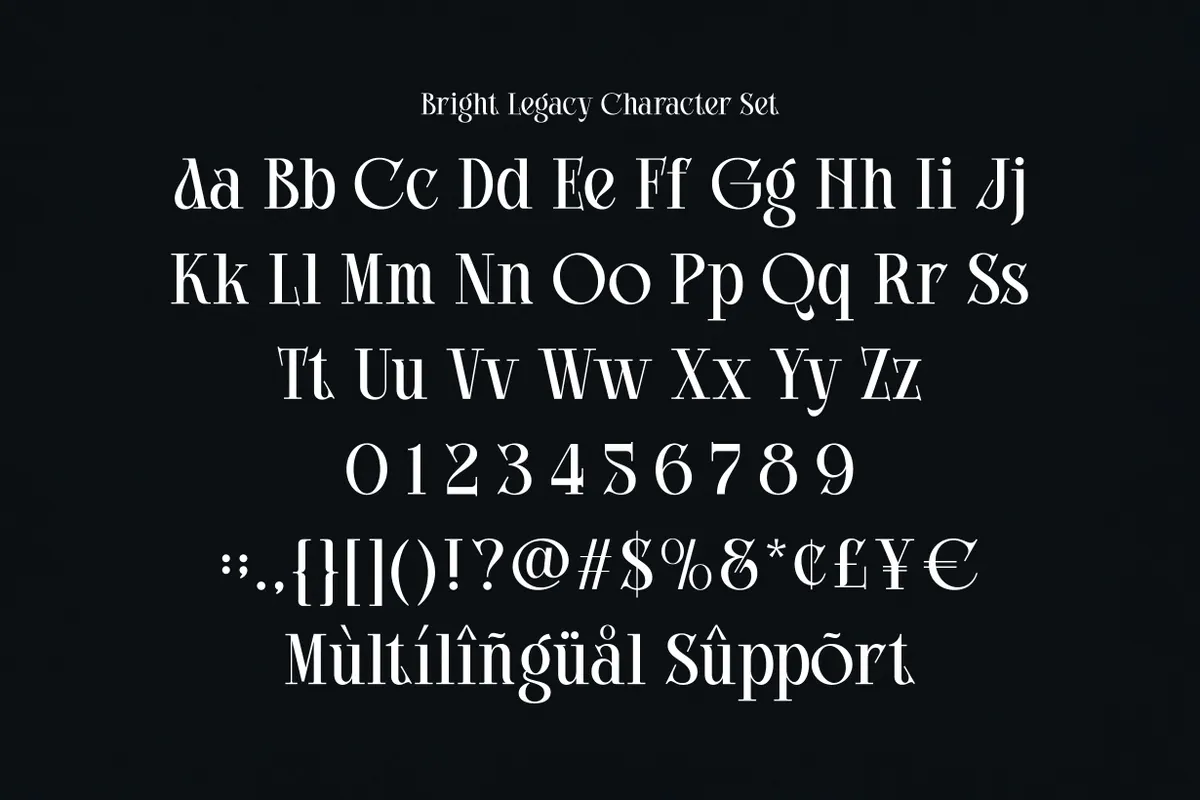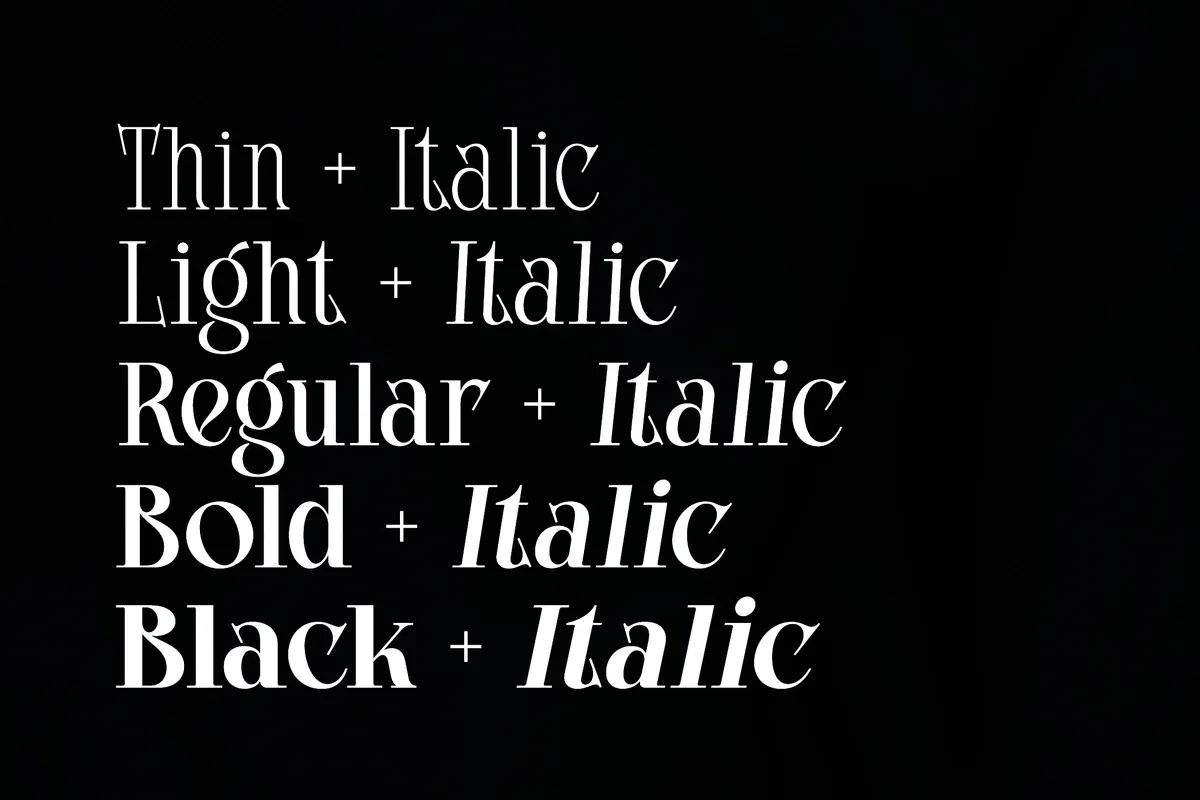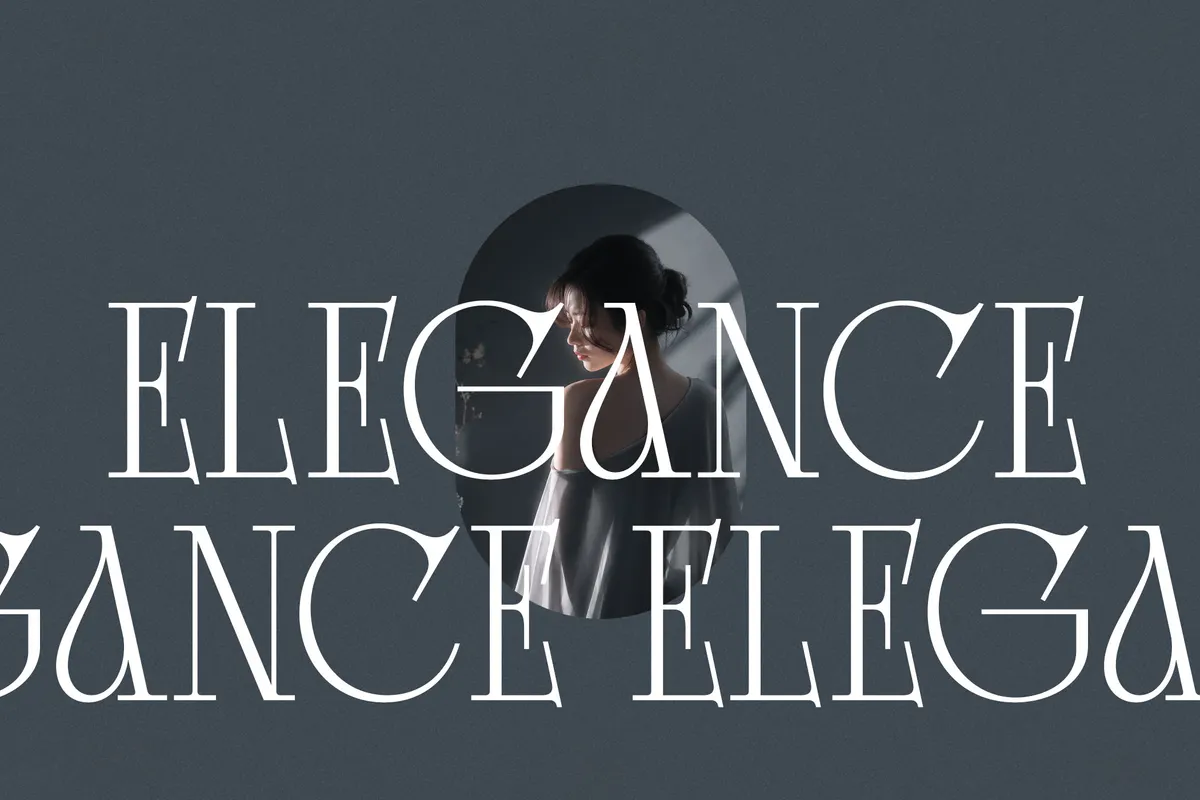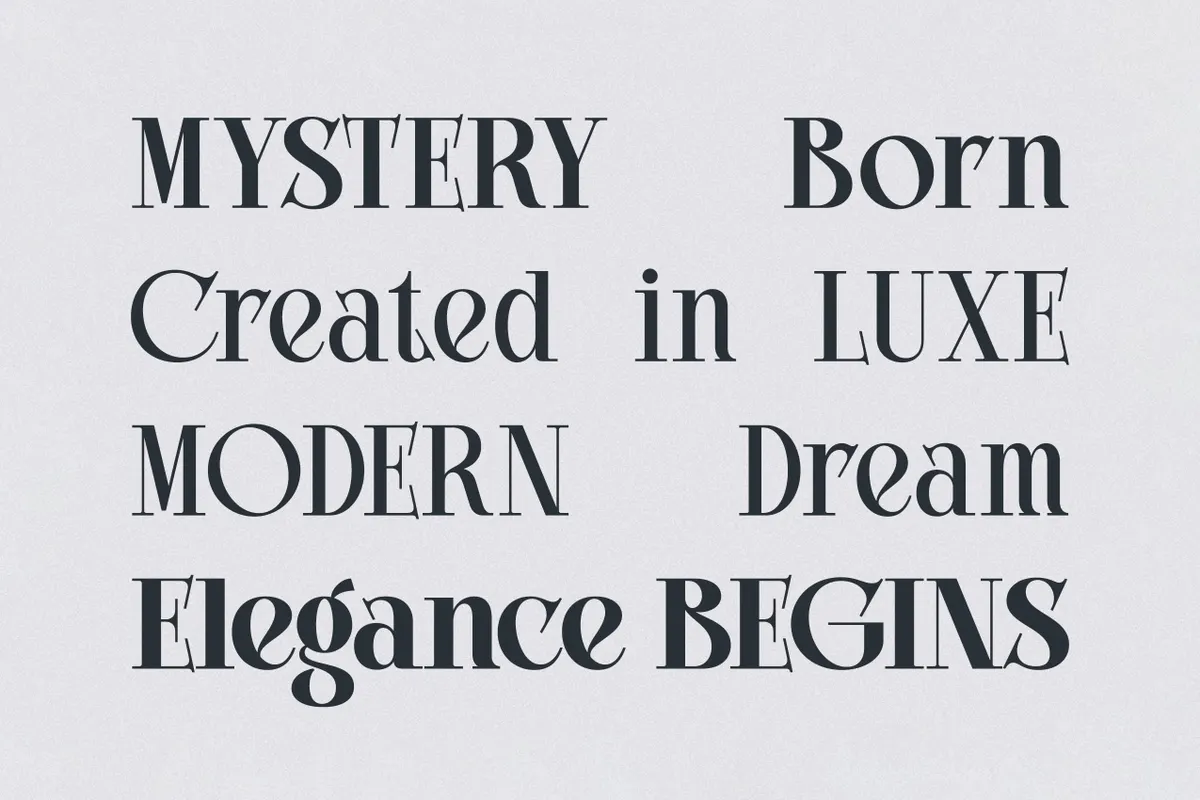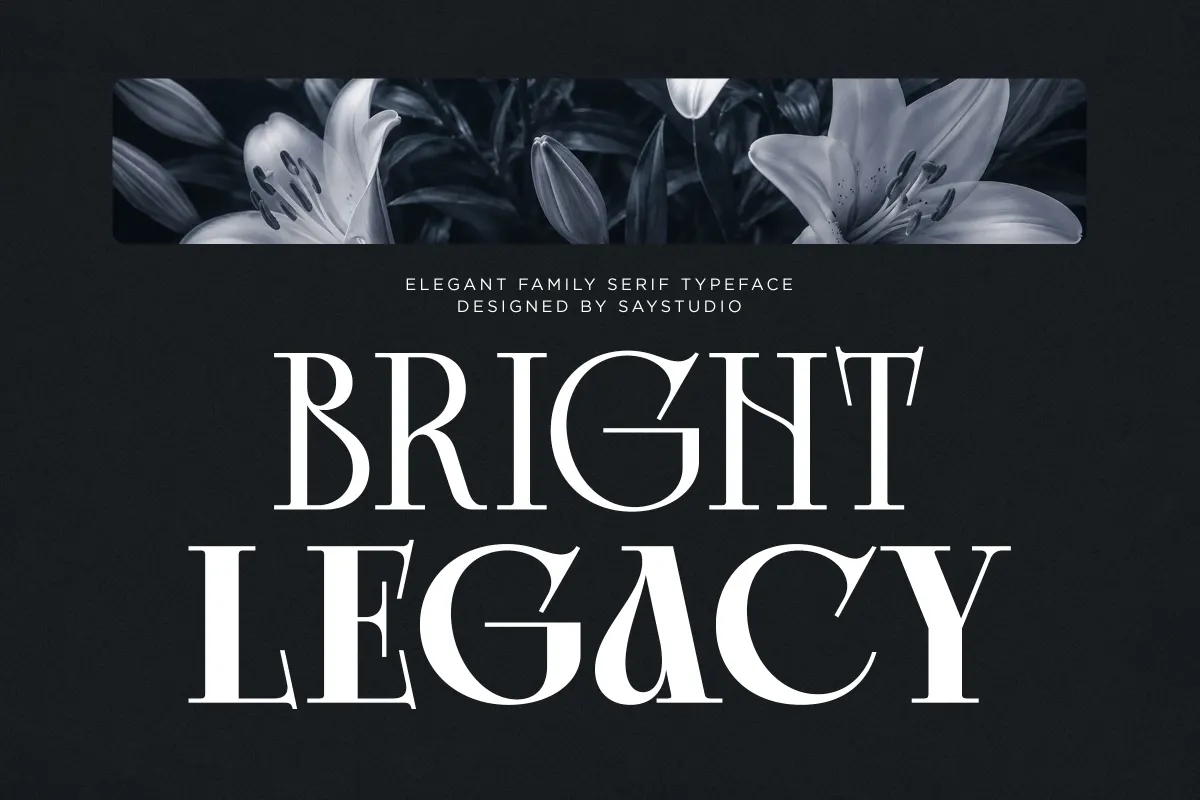
Bright Legacy - Luxury Serif Font Family
Bright Legacy builds tall, high-contrast serif capitals with graceful curves and a polished editorial edge, closer to a fashion-magazine cover line than a plain text serif. Five weights move from a hairline Thin through a dense Black, each paired with a matching italic.
Use it for luxury branding, fashion editorials, beauty campaigns, premium packaging, wedding invitations, and posters that want a refined, editorial edge.
- Uppercase & lowercase;
- Numerals, punctuation & symbols;
- 5 weights: Thin, Light, Regular, Bold, Black, each with a matching Italic;
- Ligatures & superscript figures;